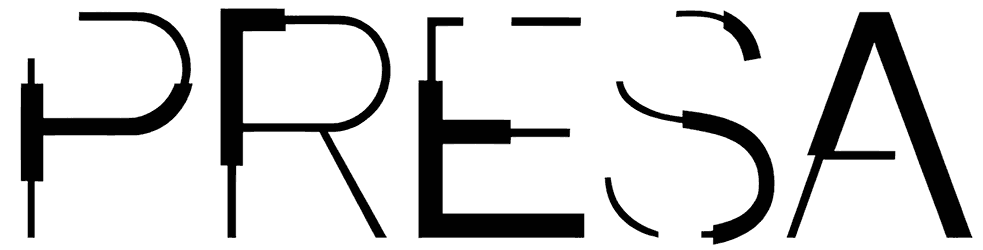
Presa Font
What makes Presa a unique font is the correct geometric design and two styles, thin and thick. This futuristic font has an industrial style that pairs well with printed and digital designs. Presa does not include lowercase letters but is a premium font for designing movie titles, music album covers, and video games, with a touch of violence and robotics.
Designed by: Antipixel